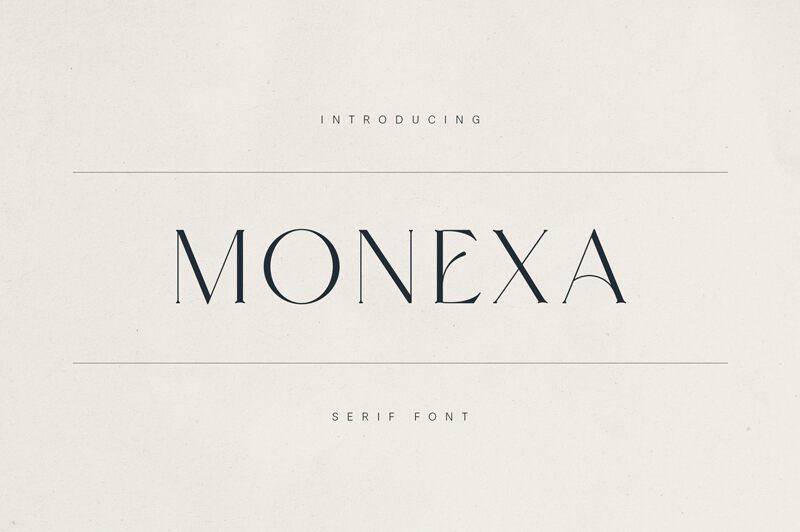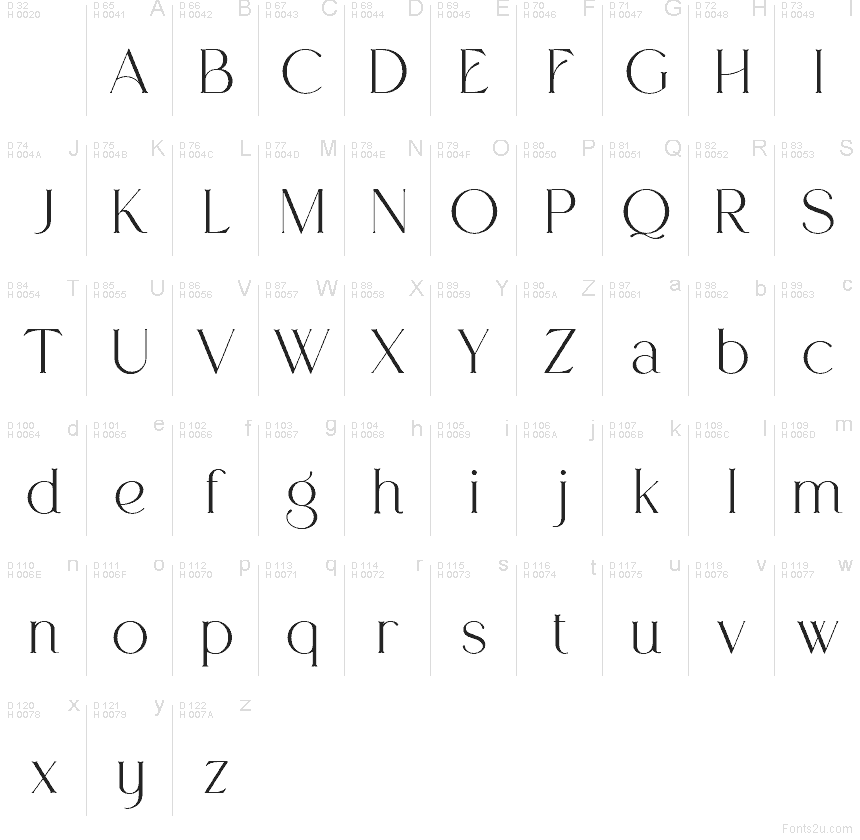
Monexa Demo Regular
Monexa font by VPcreativeshop is a free serif typeface that feels like it’s drawn with a single, deliberate ink stroke. Its letterforms are tall and refined, with needle-thin stems, sharp little flicks of serifs, and smooth curves that give every word a runway-ready poise. The spacing feels airy and luxurious, so even a short word stretches out with a calm, confident rhythm.
Using Monexa, headlines instantly pick up a fashion-editorial energy that shines on logos, beauty branding, high-end packaging, magazine covers, wedding stationery, and sleek social media graphics. This free font works beautifully at larger sizes where its fine, sculpted details can breathe. For a balanced look, pair Monexa with a clean geometric sans in smaller text to keep layouts modern and readable.